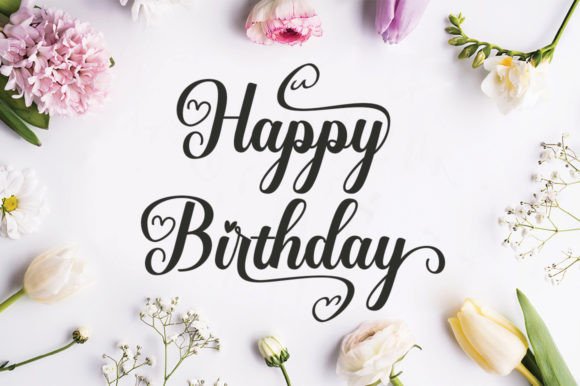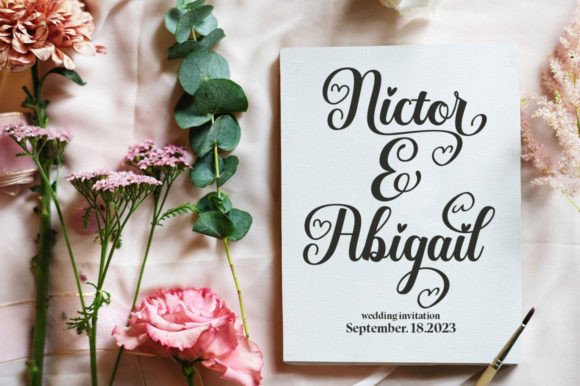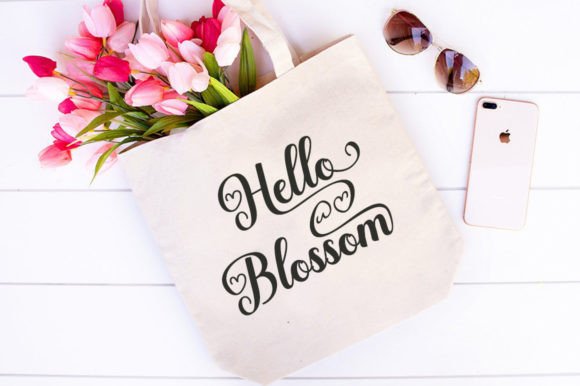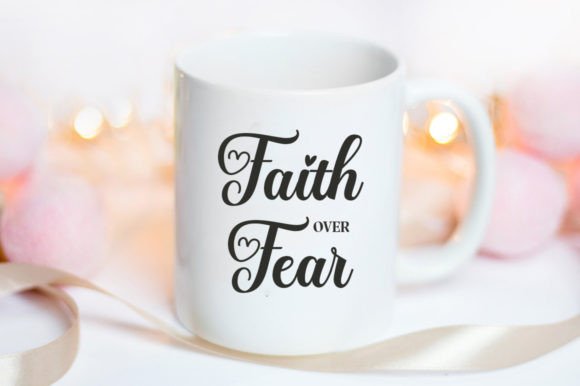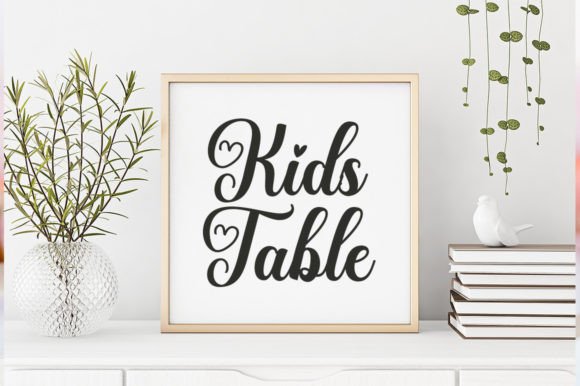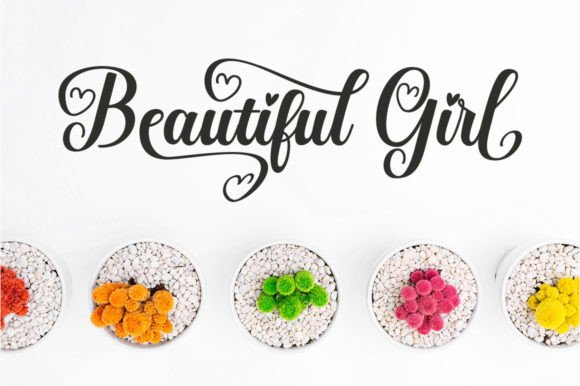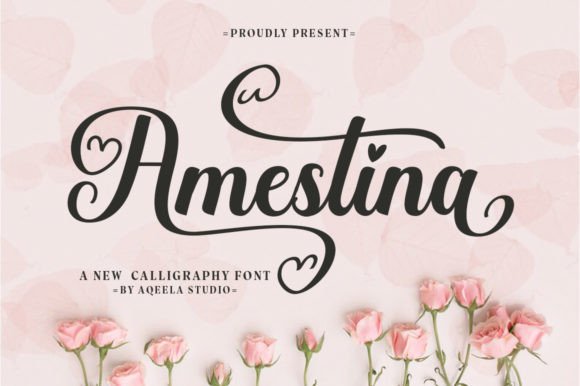
Discover the Charm of Amestina Font: Elevate Your Design Projects with its Unique Handwritten Aesthetic
In the world of typography, fonts play a crucial role in conveying the tone and personality of a design project. For designers and crafters seeking a unique and captivating handwritten aesthetic, Amestina Font is an excellent choice. With its recent letter styles, Amestina Font has become an ideal solution for a wide range of projects, from wall displays and wedding invitations to social media post logos, commercials, product packaging, and more.
What is Amestina Font?
Amestina Font is a carefully crafted typeface designed to bring a touch of elegance and sophistication to various design projects. Its most recent letter styles boast a beautiful, handwritten aesthetic that can instantly elevate the visual appeal of any design. Whether you’re working on a wedding invitation, a product label, or a social media post, Amestina Font is sure to make your project stand out.
Key Features of Amestina Font
- Handwritten Aesthetic: Amestina Font’s unique letter styles are designed to mimic the look and feel of handwritten text, adding a personal touch to your design projects.
- Versatility: With its wide range of applications, Amestina Font is an excellent choice for various design projects, including wall displays, wedding invitations, social media post logos, commercials, product packaging, and more.
- Elegance and Sophistication: Amestina Font’s elegant and sophisticated design makes it perfect for projects that require a touch of refinement and luxury.
Amestina Font is an excellent choice for designers and crafters seeking a unique and captivating font for their projects. Its handwritten aesthetic and elegant design make it perfect for a wide range of applications, including:
- Wall Displays: Add a touch of elegance to your wall displays with Amestina Font’s beautiful letter styles.
- Wedding Invitations: Make your wedding invitations truly special with Amestina Font’s romantic and sophisticated design.
- Social Media Post Logos: Elevate your social media presence with Amestina Font’s unique and captivating letter styles.
- Commercials: Add a touch of professionalism and sophistication to your commercials with Amestina Font.
- Product Packaging: Make your product packaging stand out with Amestina Font’s elegant and eye-catching design.
- Product Designs: Add a personal touch to your product designs with Amestina Font’s handwritten aesthetic.
- Labels: Create beautiful and elegant labels with Amestina Font’s unique letter styles.
- Photographs: Add a touch of sophistication to your photographs with Amestina Font’s beautiful watermarks.
- Watermarks: Protect your images with Amestina Font’s elegant and eye-catching watermarks.
- Invitations: Create stunning invitations with Amestina Font’s romantic and sophisticated design.
- Stationery: Elevate your stationery with Amestina Font’s elegant and refined letter styles.
Why Choose Amestina Font?
With so many fonts available, why choose Amestina Font for your design projects? Here are just a few reasons:
- Unique and Captivating Design: Amestina Font’s handwritten aesthetic and elegant design make it truly unique and captivating.
- Versatility: Amestina Font is perfect for a wide range of design projects, from wall displays and wedding invitations to social media post logos and product packaging.
- Ease of Use: Amestina Font is easy to use and can be easily integrated into your design projects.
In conclusion, Amestina Font is an excellent choice for designers and crafters seeking a unique and captivating handwritten aesthetic for their design projects. With its elegant and sophisticated design, Amestina Font is perfect for a wide range of applications, from wall displays and wedding invitations to social media post logos and product packaging. So why wait? Discover the charm of Amestina Font today and elevate your design projects to the next level!